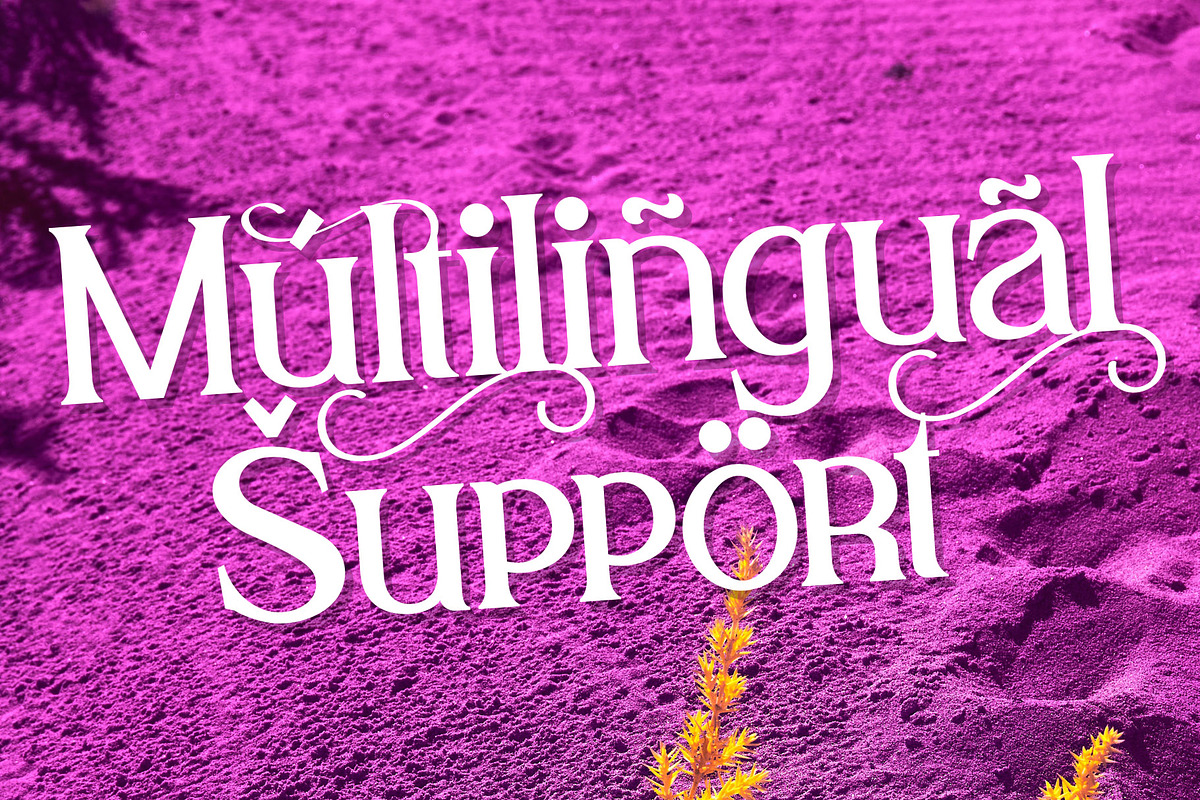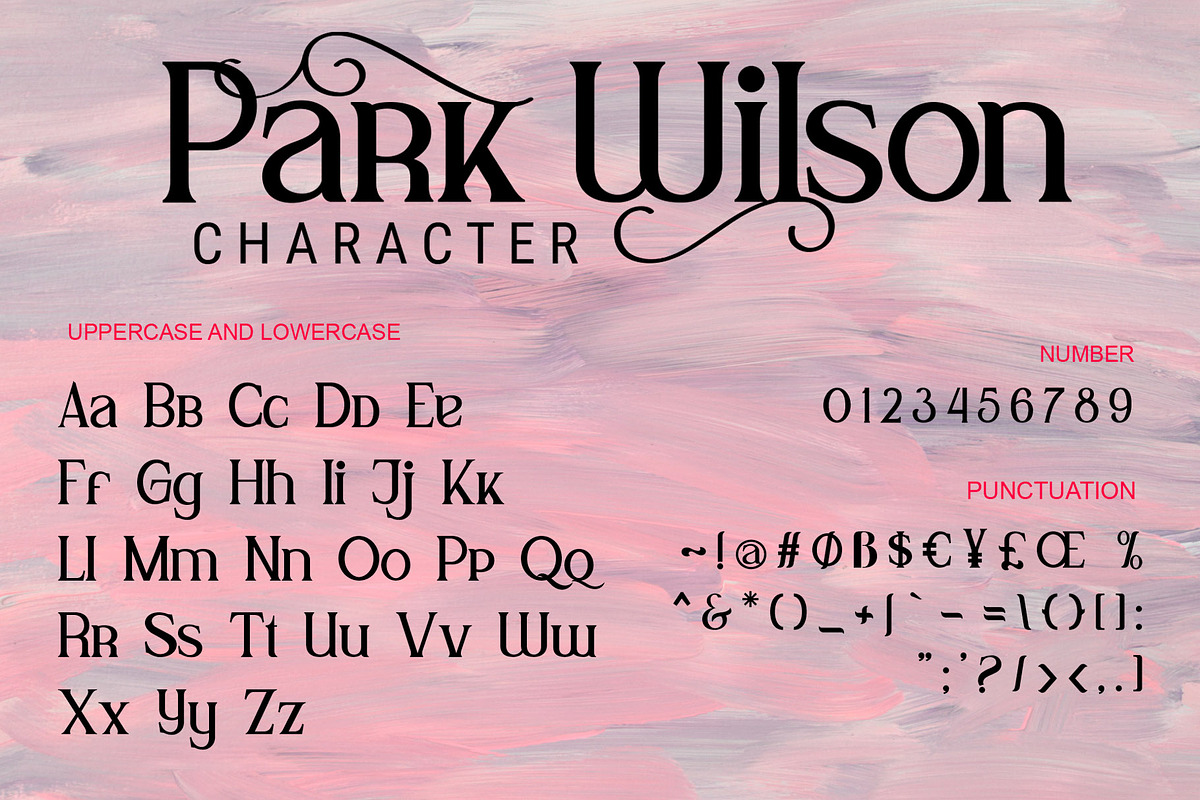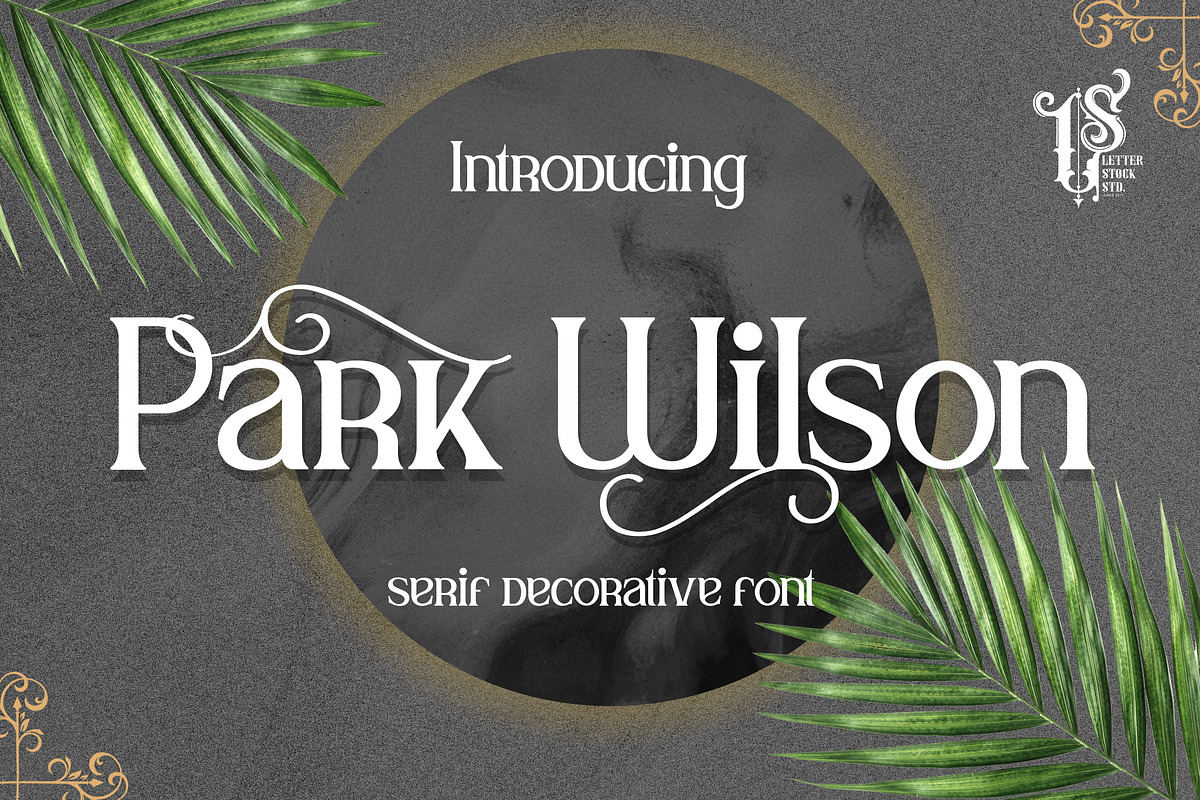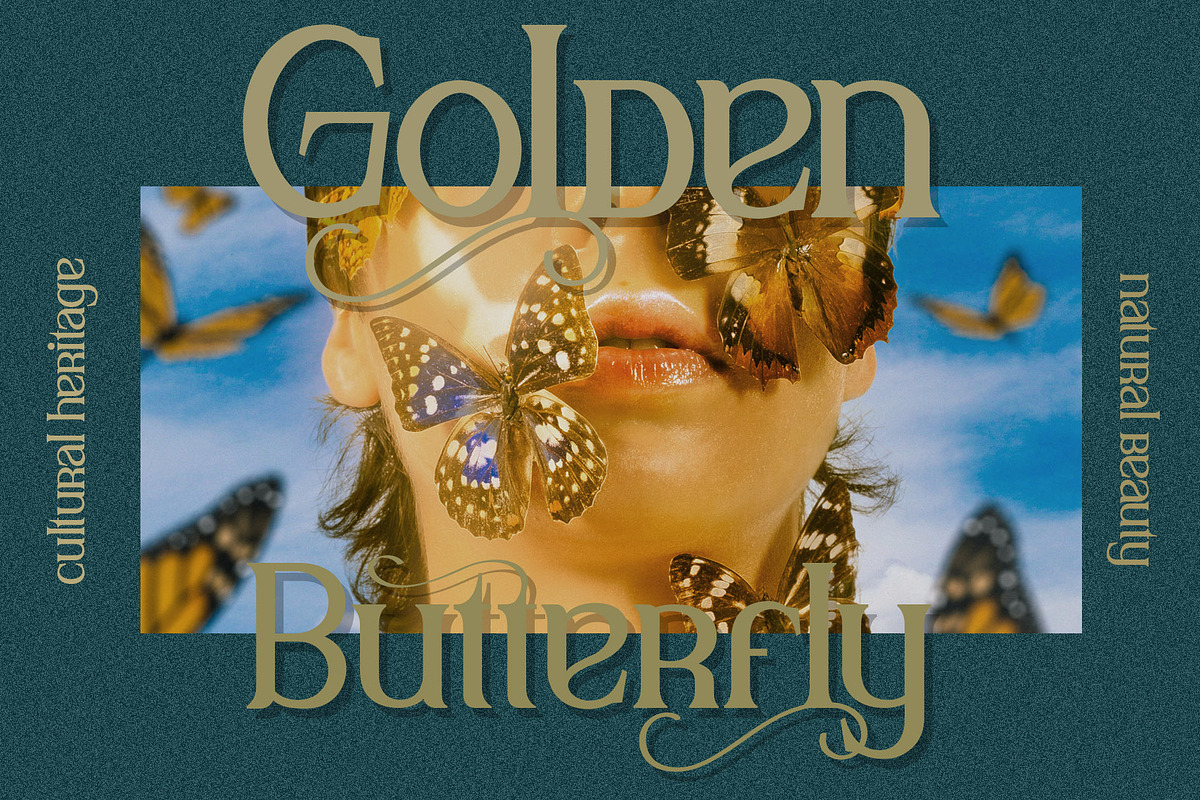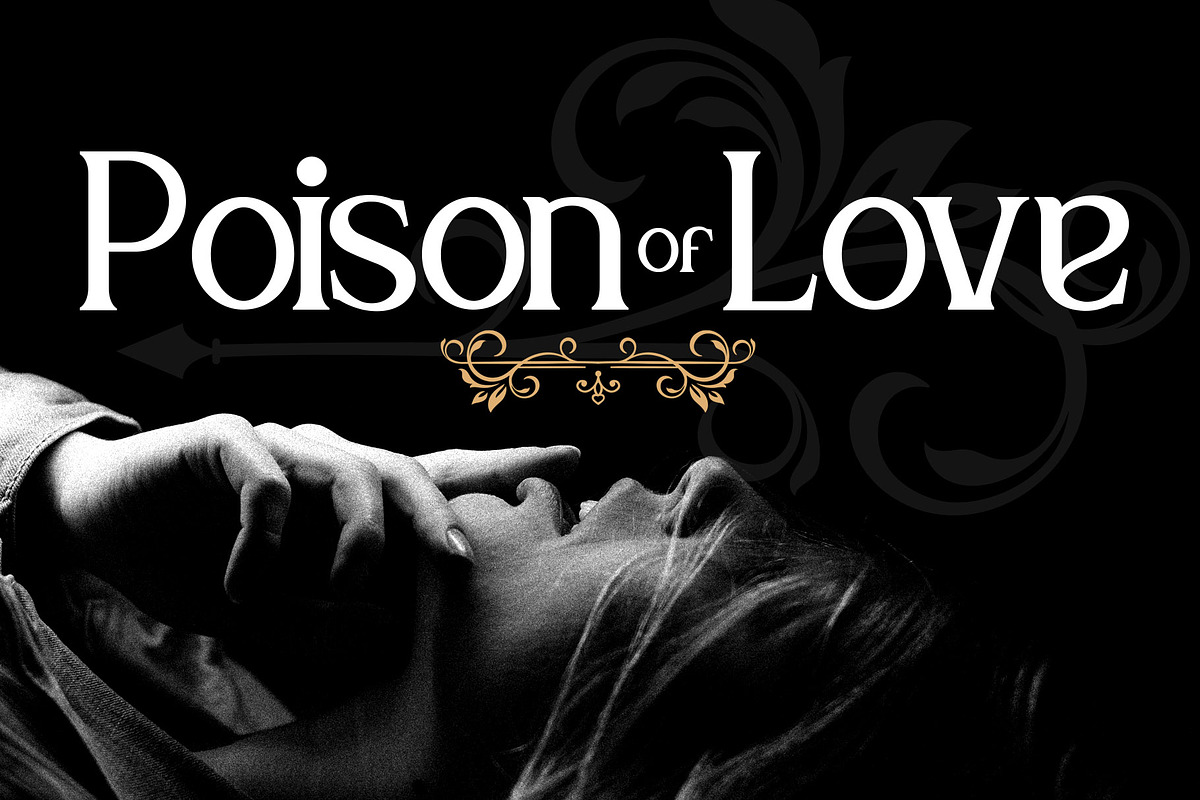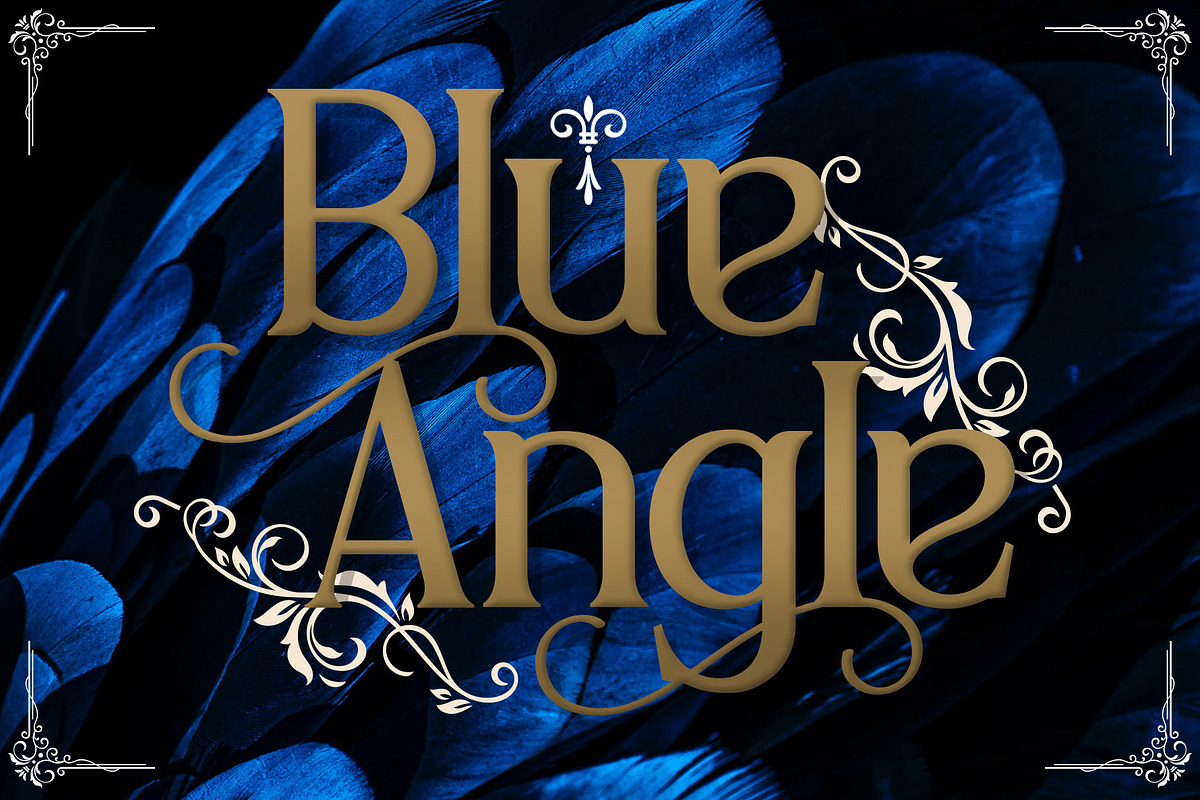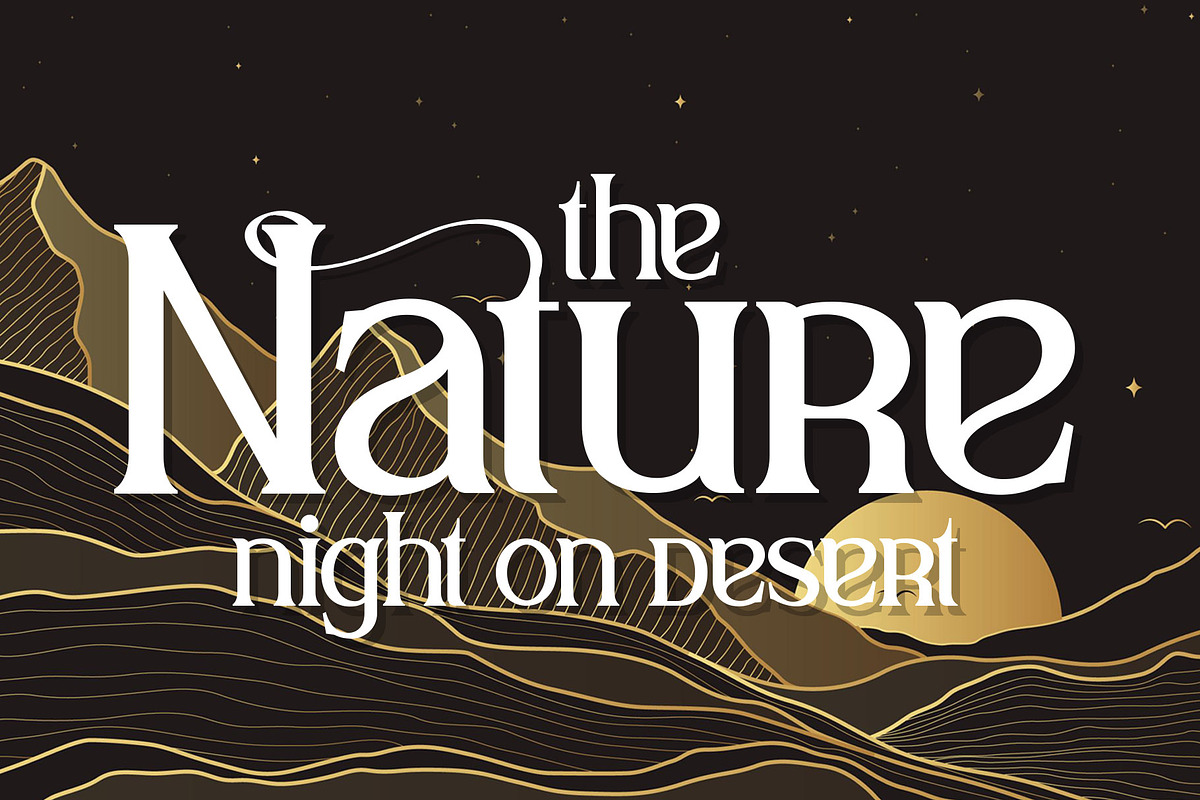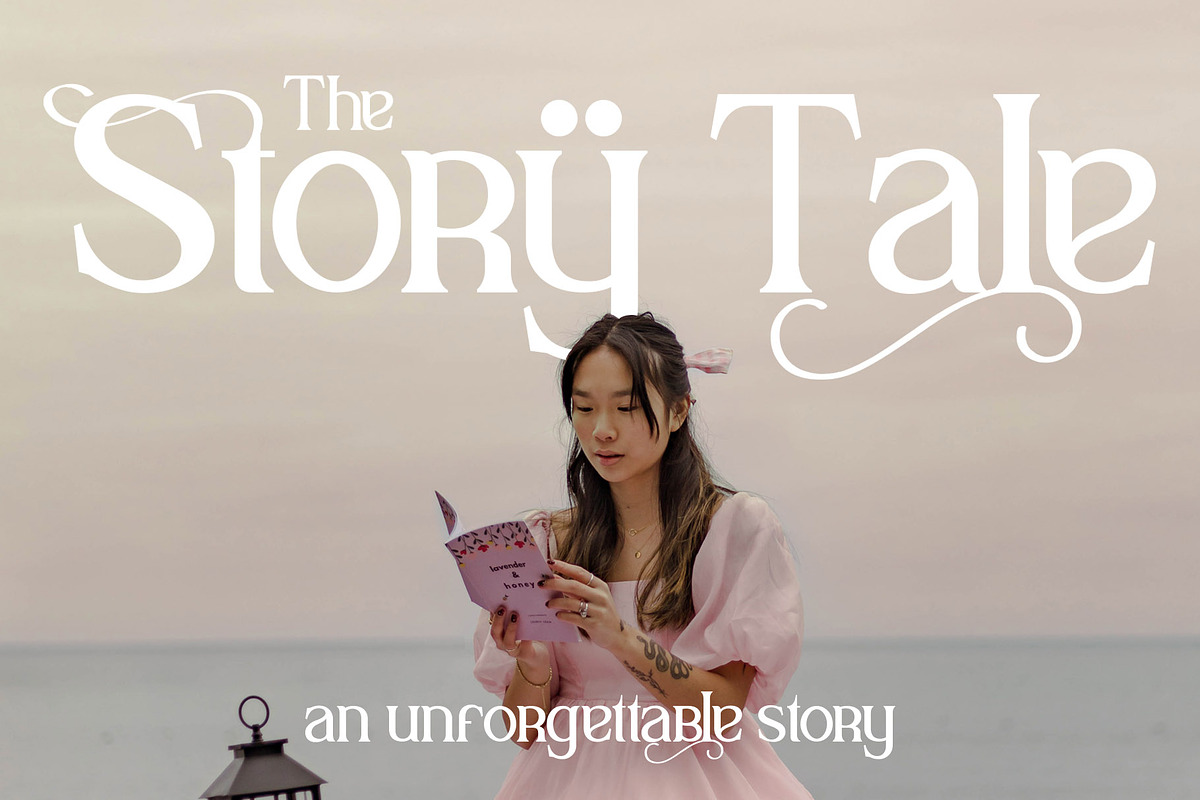
Park Wilson
This pair was inspired by vintage design that i saw at coffe shop, it was crafted by hand specially to add natural handmade feeling in its brand identity than i make it clean with pentool.
Park Wilson font has 183 character set included. This font is very good for design logo, labels, packaging product, invitations, advertising and others. This font will make your design authentic, unique and good looking with modern calligraphy style.
If you're looking for unique serif decorative font, this item is a great choice to make your design looks great and unique.